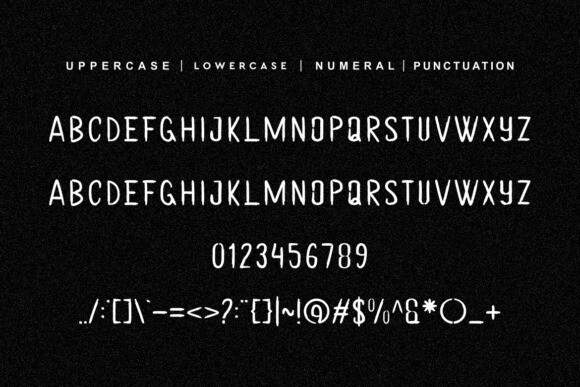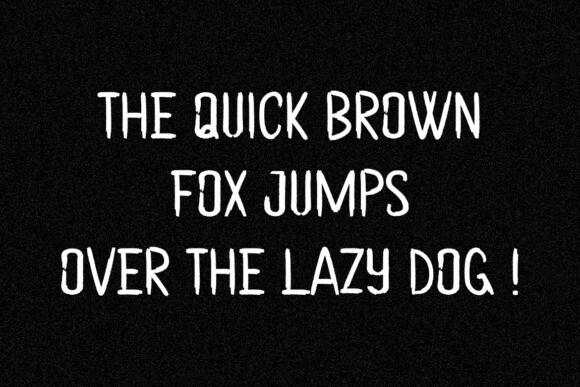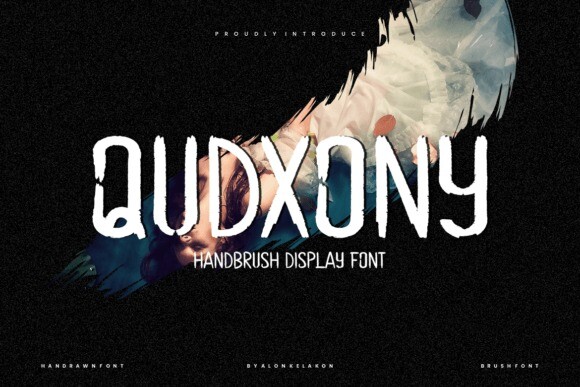
Qudxony Font
Designer: alonkelakon
Qudxony Font is an incredibly unique handwritten font. Masterfully designed to become a true favorite, this font has the potential to bring each of your creative ideas to the highest level!